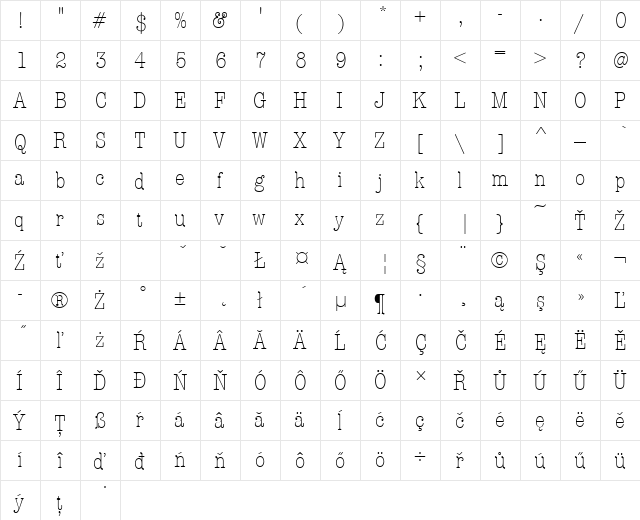
AmericanTypItcTEELigCon Regular Font Preview
AmericanTypItcTEELigCon Regular
Design Context for AmericanTypItcTEELigCon Typeface
AmericanTypItcTEELigCon takes a measured approach to typography — its balanced proportions and neutral character make it a reliable workhorse for both digital and print work.